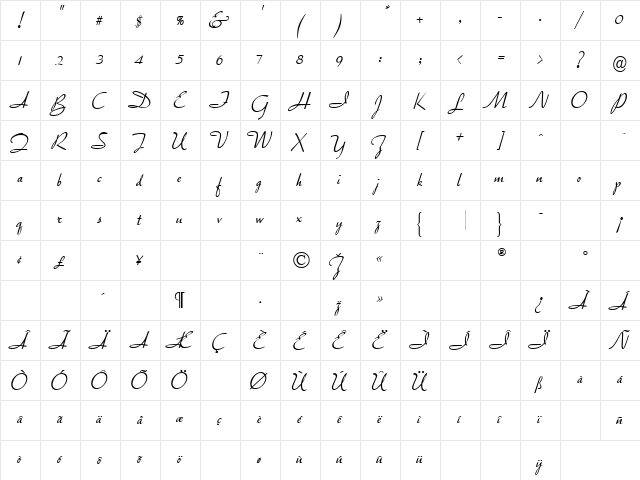
TraftonScriptHeavier GB2004
Design Context for TraftonScriptHeavier Typeface
TraftonScriptHeavier brings a calligraphic fluidity to the page — its connecting strokes and expressive curves give it an unmistakably human quality.
Font Pairing: Combine TraftonScriptHeavier with a simple geometric sans for maximum contrast — the tension between flowing curves and clean structure is a classic typographic pairing.
Pro Tip: Pair TraftonScriptHeavier with a clean sans-serif for supporting text. The contrast between fluid script and geometric structure creates an elegant typographic hierarchy.